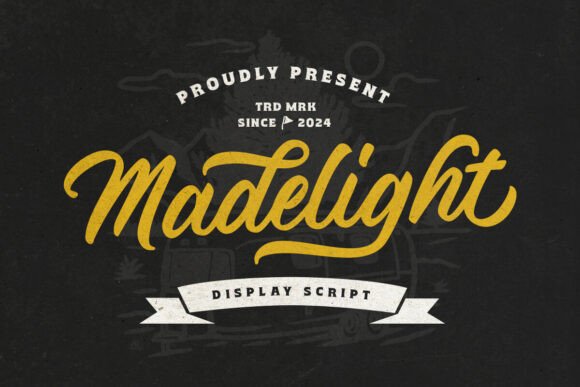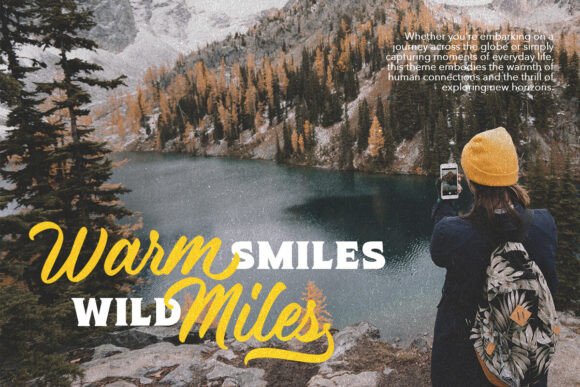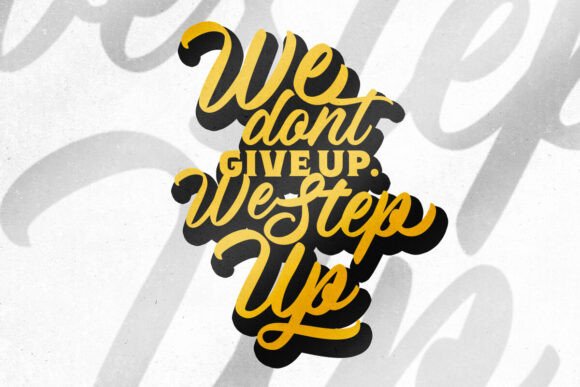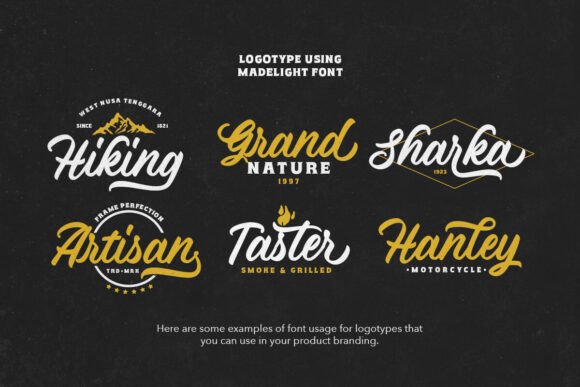
Madelight Font: Retro Script for Standout Logo Design & Branding!
About the Madelight Font
Discover the charm of Madelight Font. This font is a perfect blend of modern aesthetics and classic appeal. Madelight is a retro display script with up to 5 sets of alternates each characters that will make your design looks cool and stand out. You can use this font for any designs such as logo, branding, apparel, and merchandise. This font also support multilingual!
Madelight’s bold, retro style excels in headlines, short slogans, and logos where its distinctive character can shine. It’s ideal for branding projects aiming for a vintage or playful aesthetic, particularly in apparel, posters, and packaging designs. However, its highly stylized nature makes it unsuitable for body text or UI elements requiring high readability.
Pairing Madelight effectively requires considering its strong personality. A clean sans-serif like Open Sans or a geometric sans-serif such as Futura would provide a strong contrast and enhance readability in supporting text. For a more vintage feel, a classic serif like Garamond or a slightly more modern serif like Playfair Display could work well.
Madelight’s overall personality is energetic and bold, lending itself to brands that project confidence and a touch of retro flair. Avoid pairing it with fonts that are equally ornate, as this may result in a visually cluttered and overwhelming design.
Madelight Font Usage Examples
Madelight Font Example